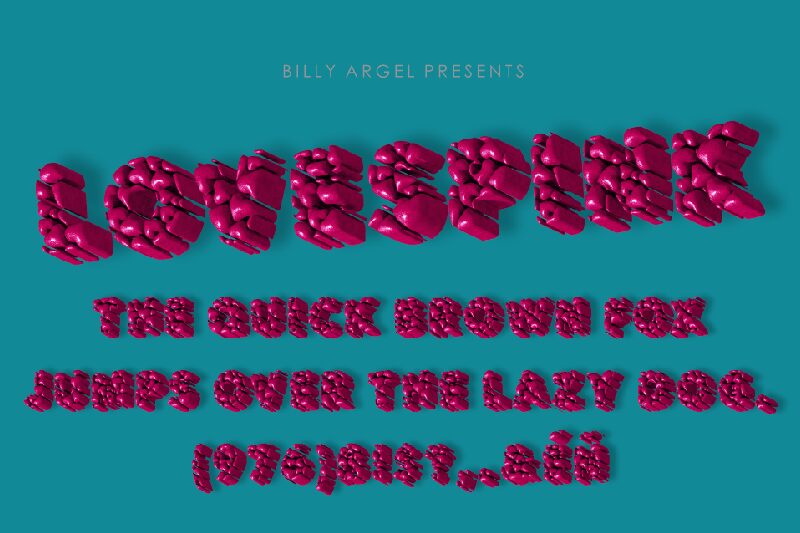
LOVESPINK Black is a mesmerizing display font by Billy Argel Fonts. This ultra-bold, decorative typeface adds an eye-catching touch to any project.
Its unique design and thick strokes make it suitable for attention-grabbing headlines, poster designs, or branding materials. LOVESPINK Black exudes confidence and boldness, making it perfect for fashion magazines or product packaging that aims to stand out on the shelves.
With its distinct style and commanding presence, this font is sure to make a lasting impression in the world of design.